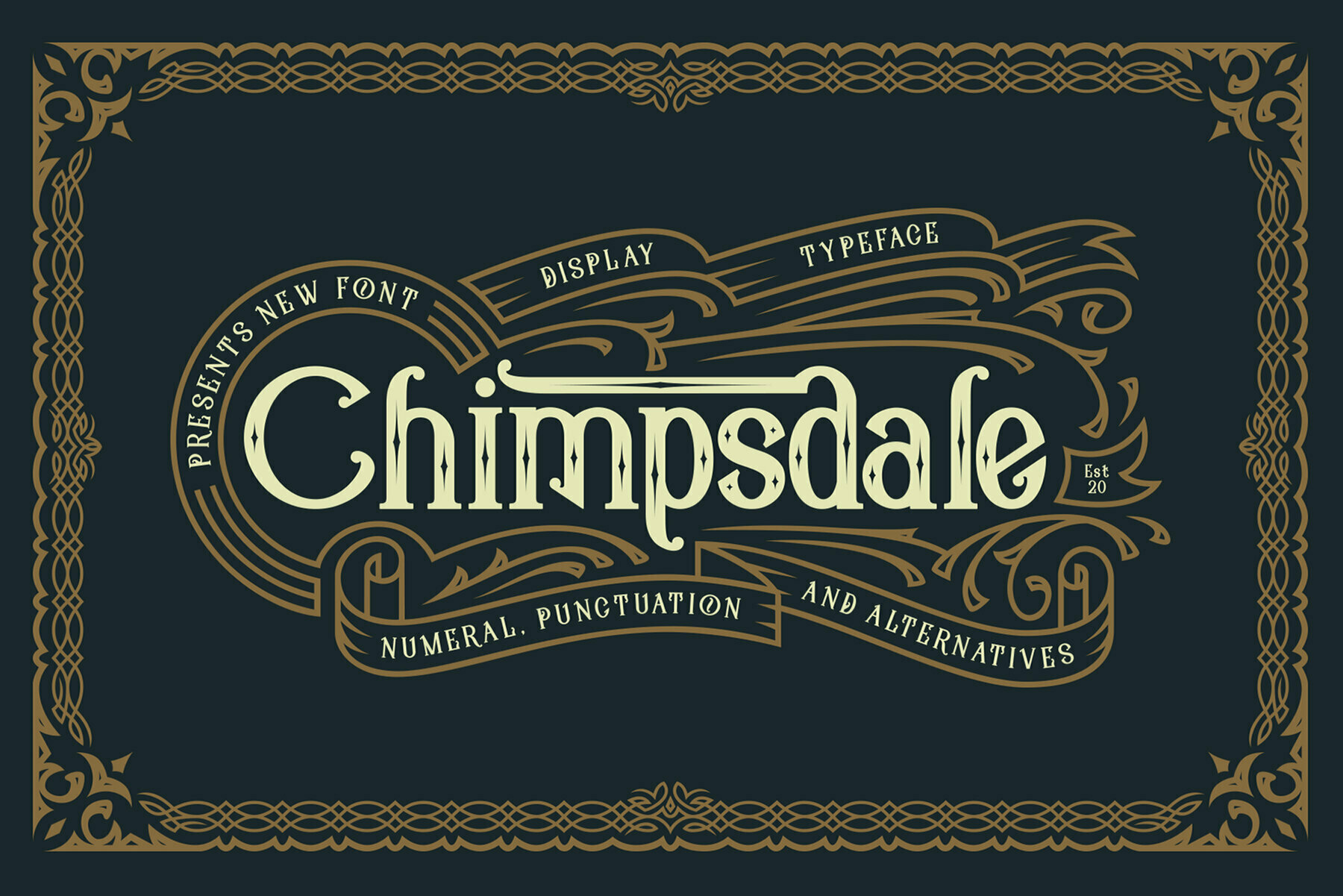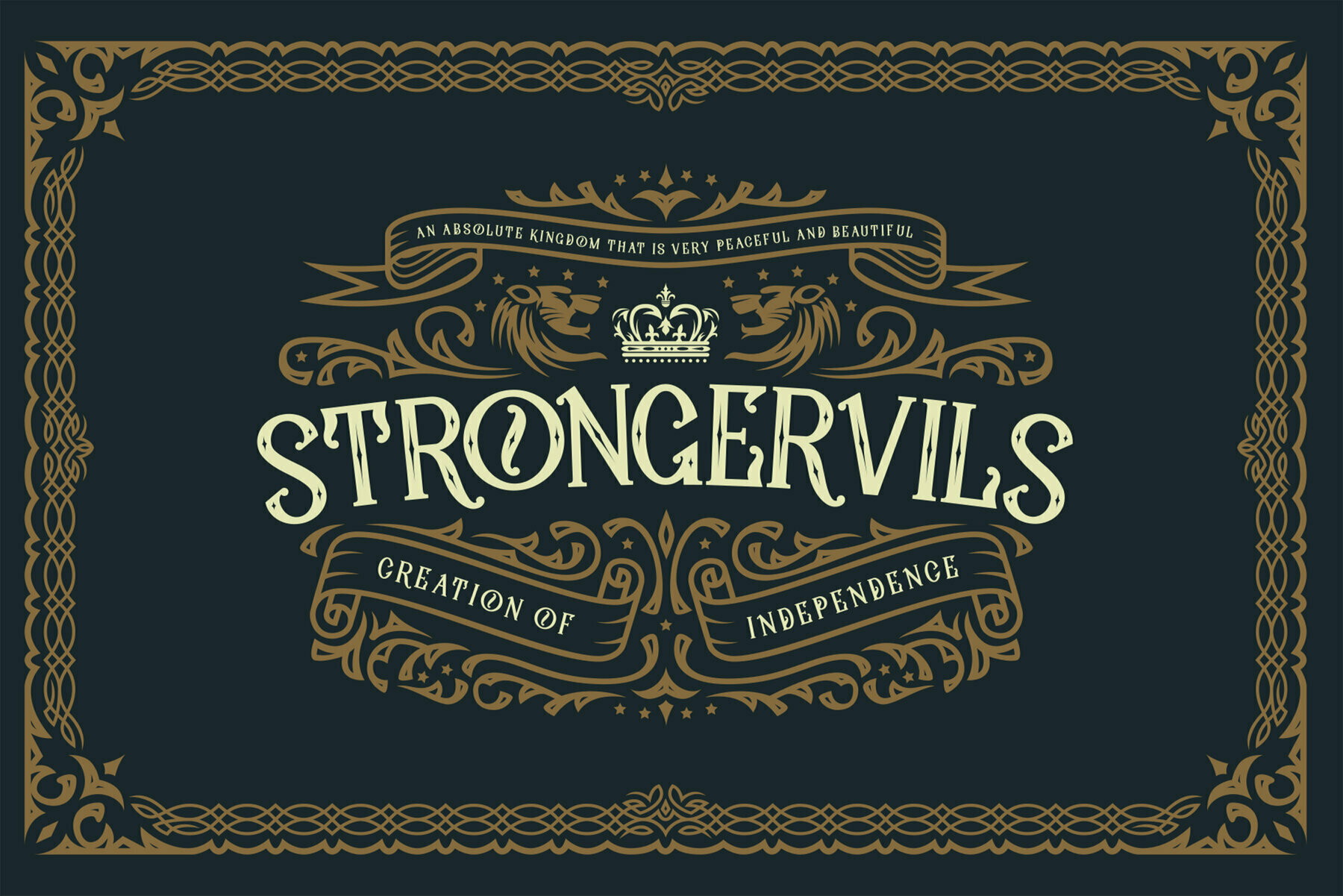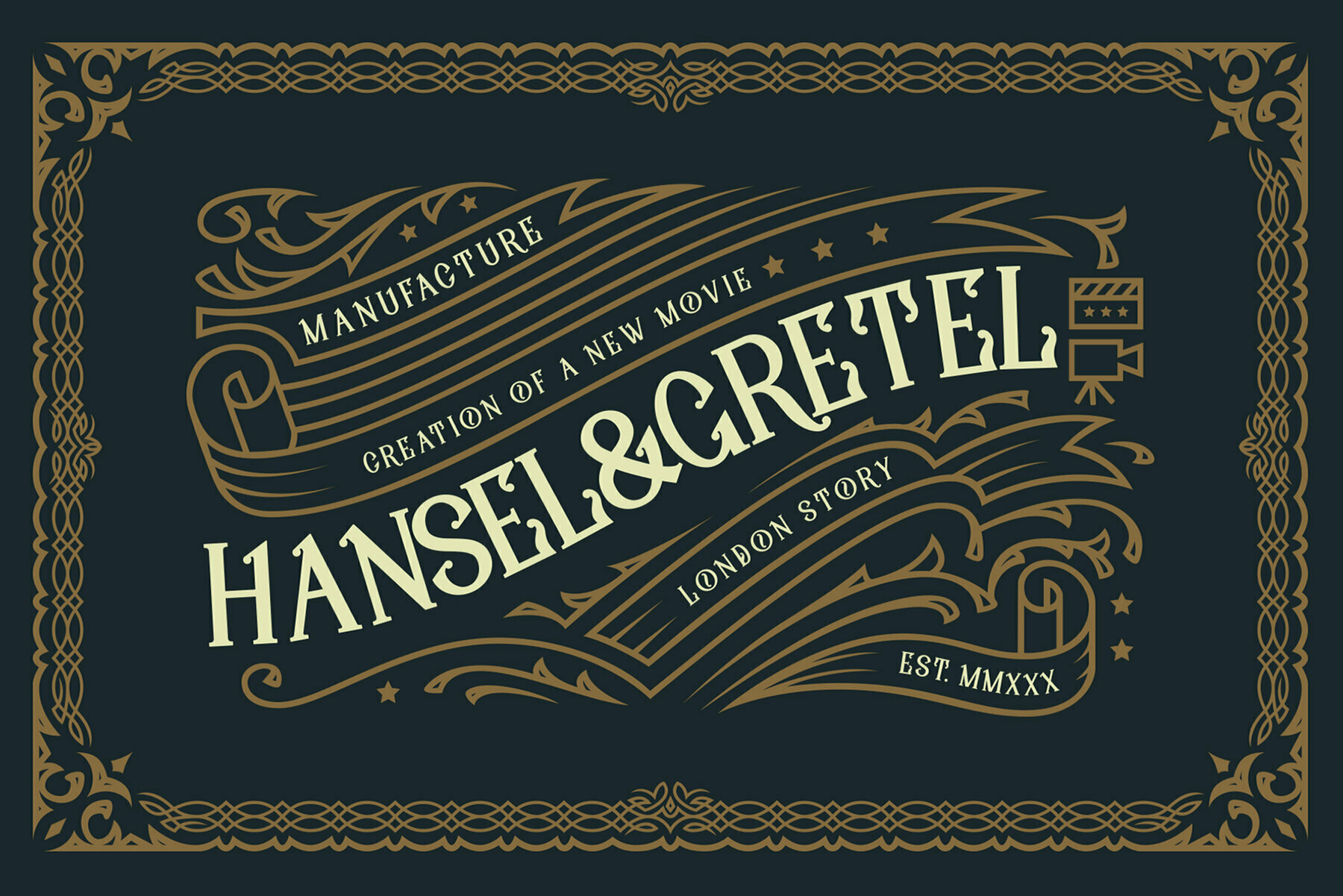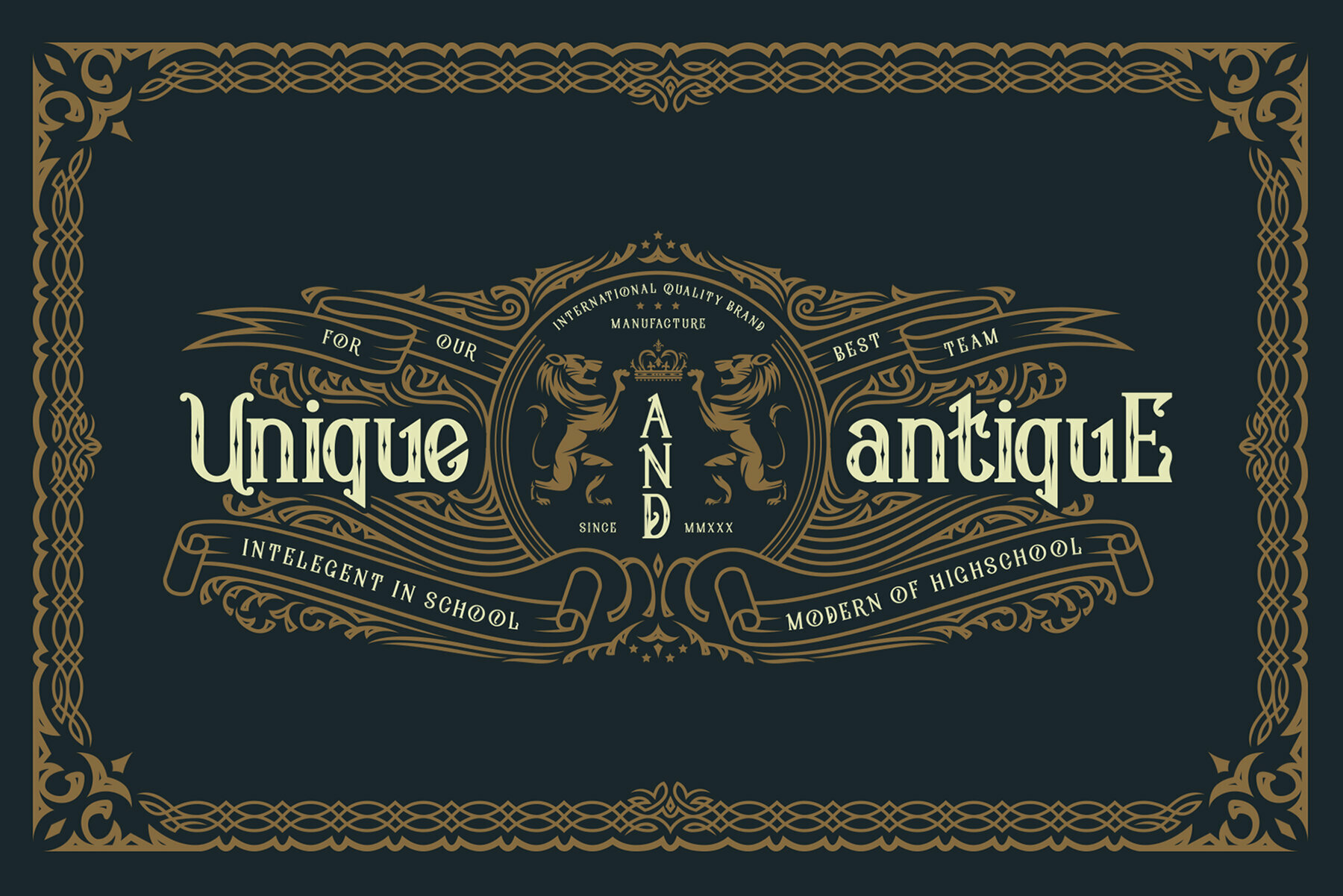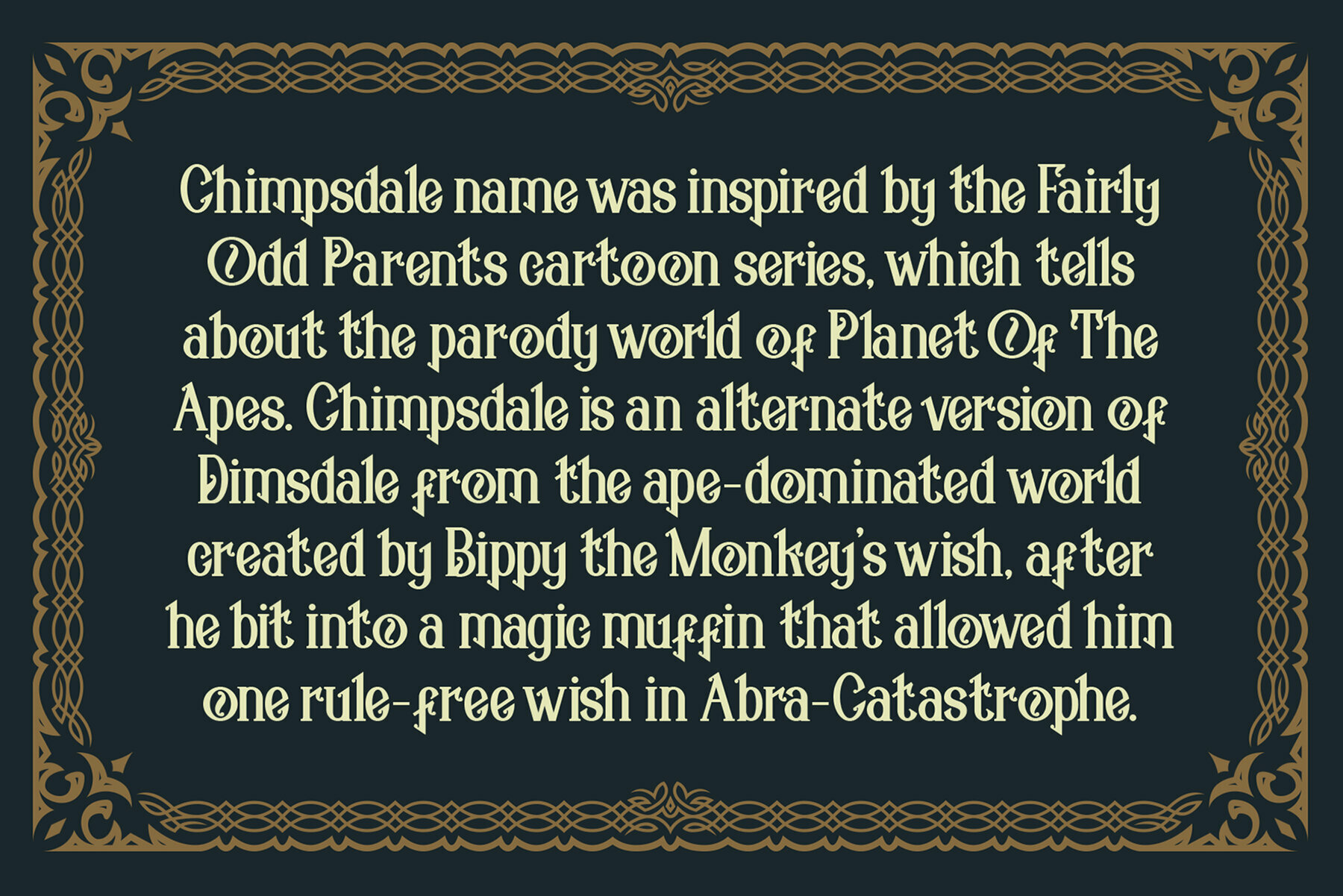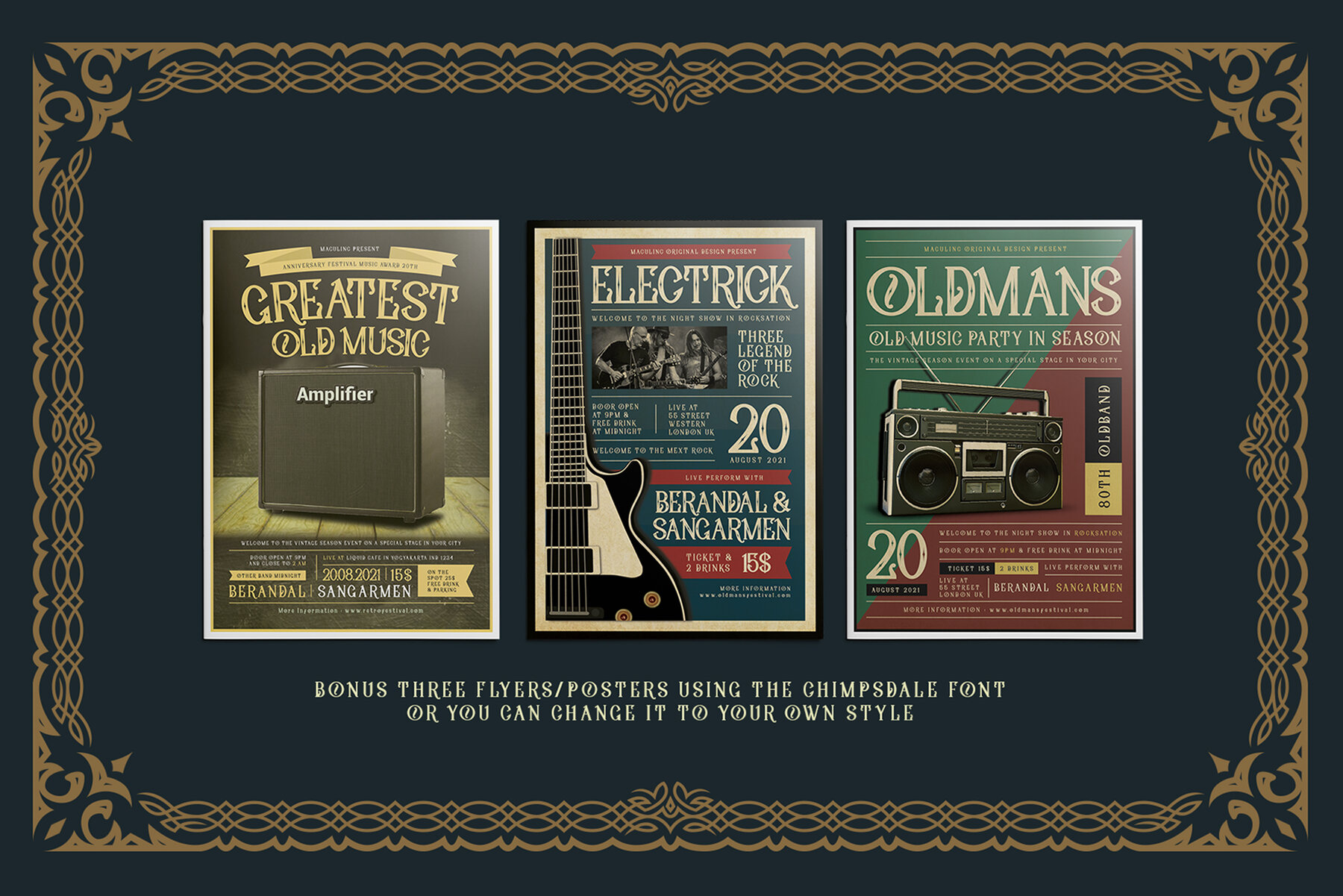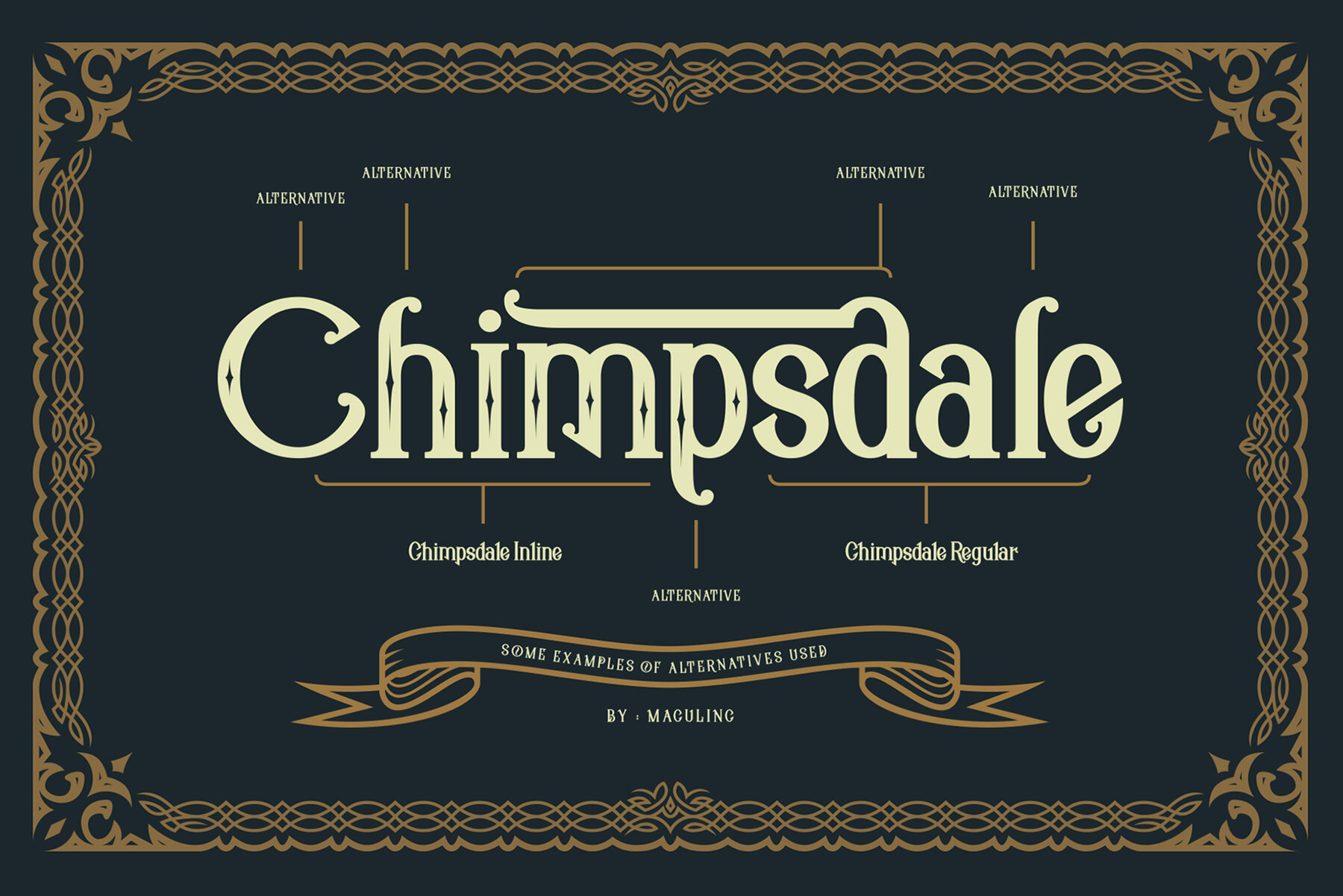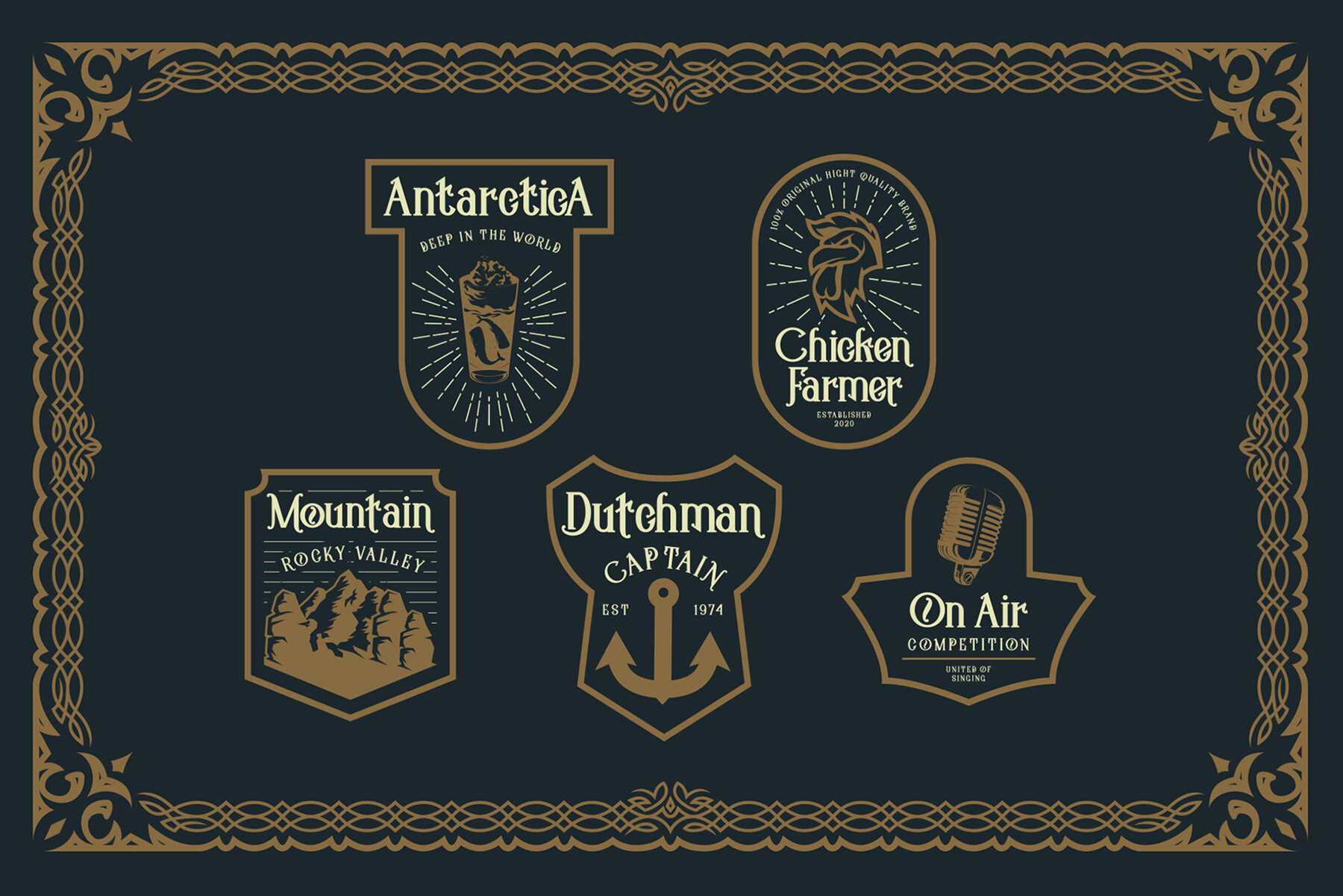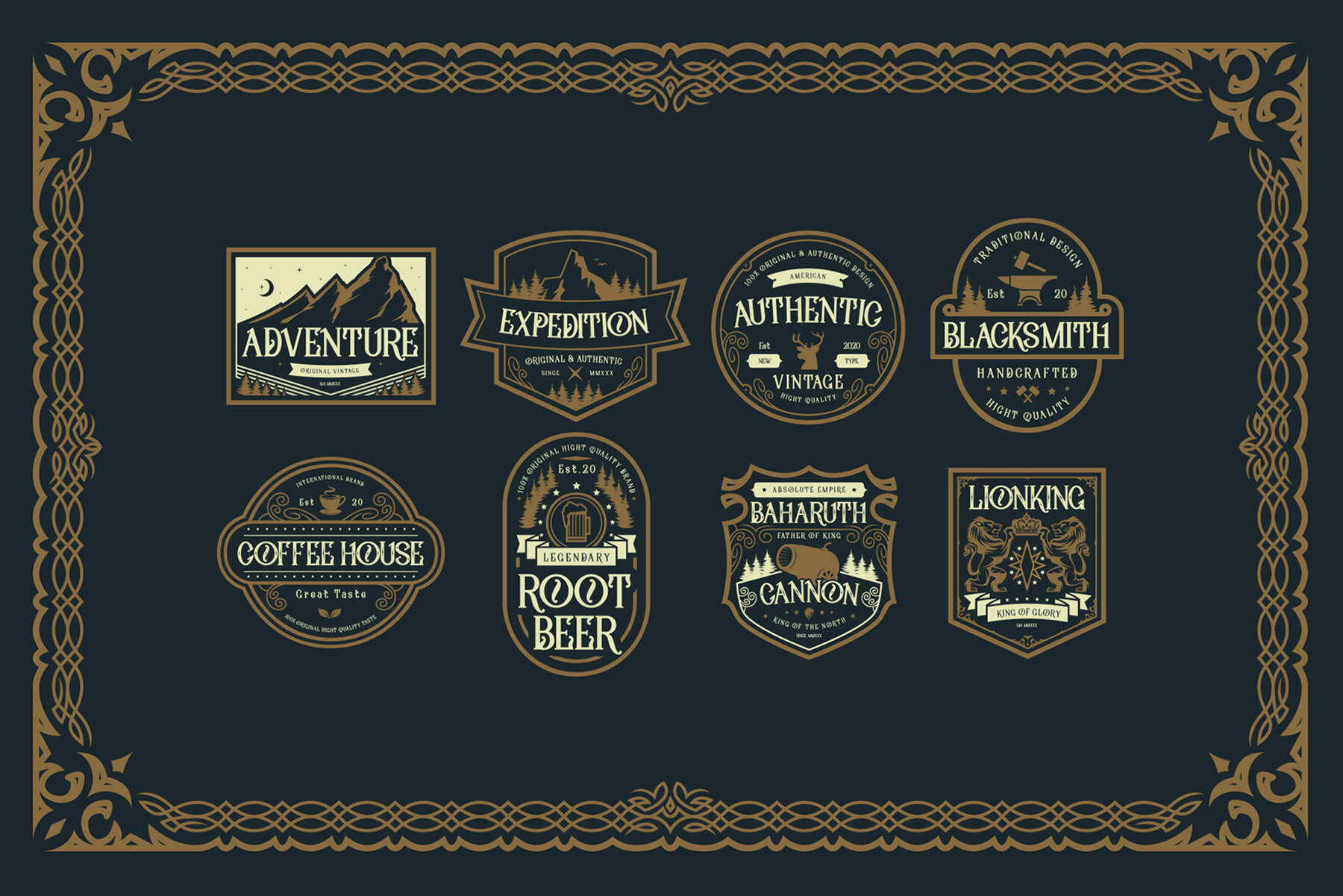
Chimpsdale Font
Chimpsdale Regular
Chimpsdale Inline
Chimpsdale name was inspired by the Fairly Odd Parents cartoon series, which tells about the parody world of Planet Of The Apes. Chimpsdale is an alternate version of Dimsdale from the ape-dominated world created by Bippy the Monkey’s wish, after he bit into a magic muffin that allowed him one rule-free wish in Abra-Catastrophe.
Chimpsdale is a font that is inspired by the theme of past kingdoms, we wrap it in such a way to make it look suitable for many jobs Especially.You can use it as a logo, badge, insignia, packaging, headline, poster, t-shirt/apparel, greeting card, business card, and wedding invitation and more. The flowing characters are ideal to make an attractive messages to your taste.
Mix and match with a bunch of alternative characters to fit your
will be more interesting if you add swash / alternative swash.
The alternative characters in this font were divided into several OpenType features such as Stylistic Alternates, Ligature and Ligature Alternates.